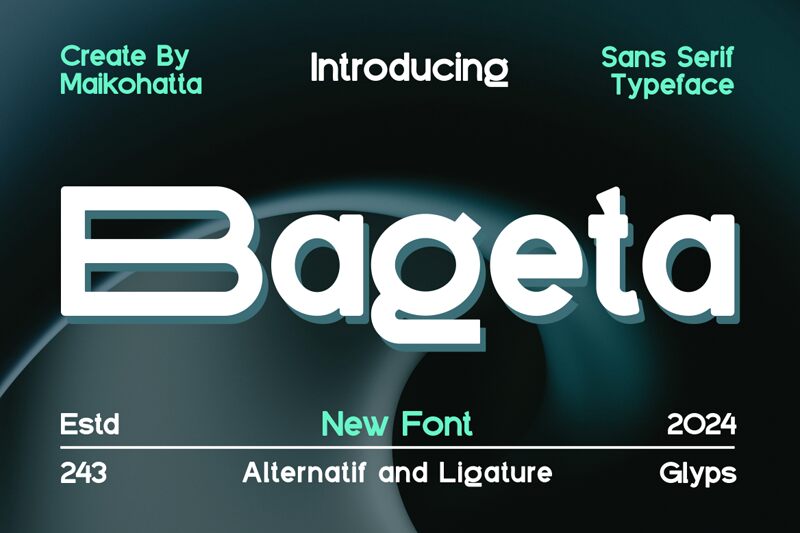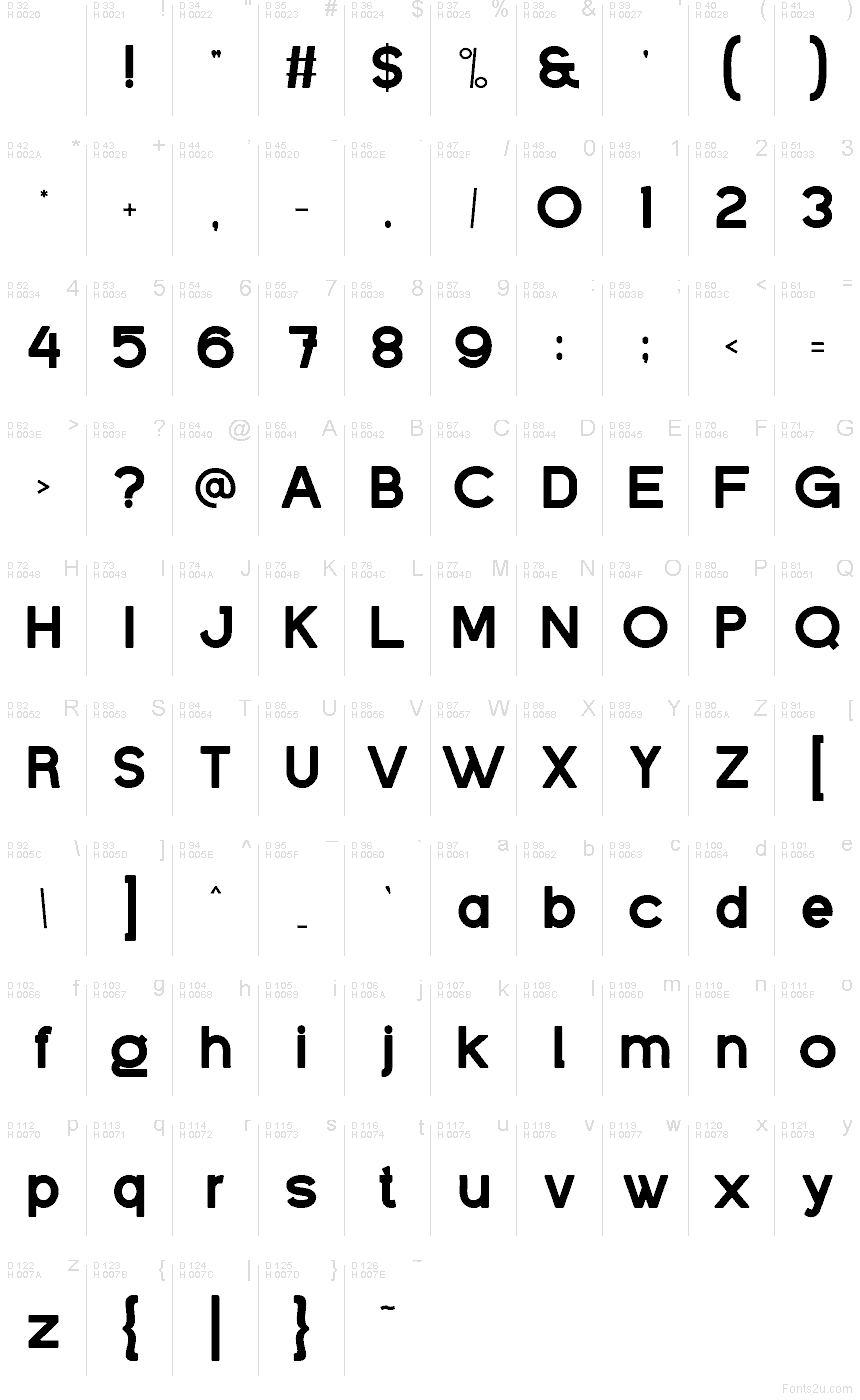
Bageta
Bageta font by Gilang Ternadho of Maikohatta is a free retro sans serif typeface with a bold, bouncy warmth that’s hard to miss. Its wide, rounded forms and generous counters feel soft and approachable, like classic bubble lettering refined for modern branding. The smooth curves and steady weight give Bageta a strong, confident presence while still feeling friendly and easy to read at a glance.
Using Bageta, you can give logos, packaging, posters, badges, headlines, social graphics, and playful merch a nostalgic yet clean look. This free font shines when you set it big and let those round shapes breathe, then pair it with a simple, narrow sans for small supporting text to keep layouts balanced and clear.